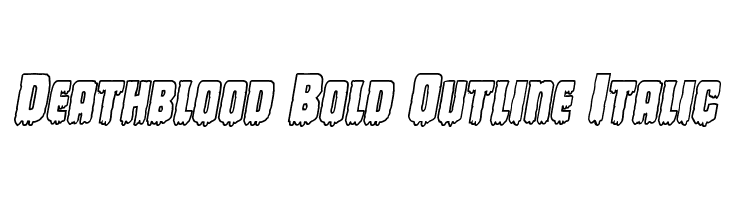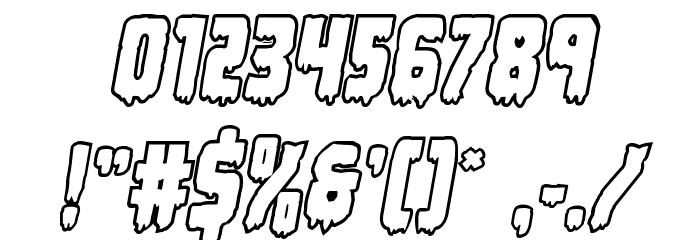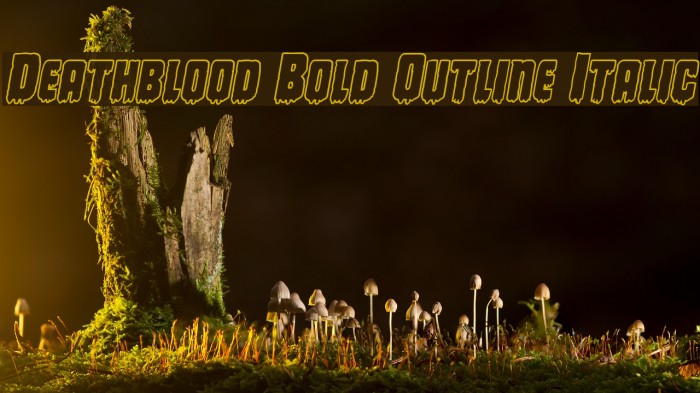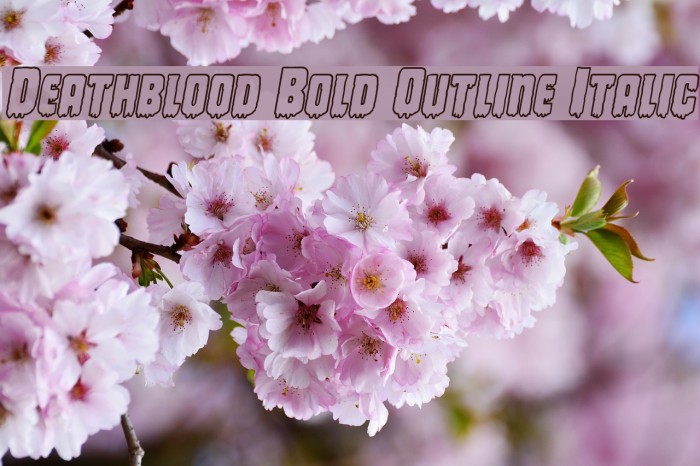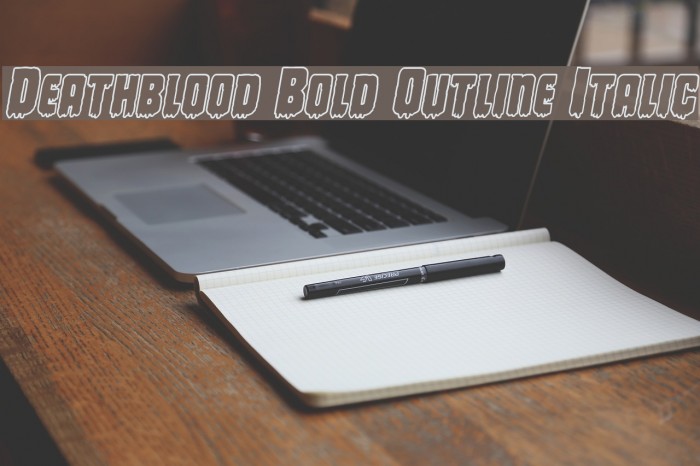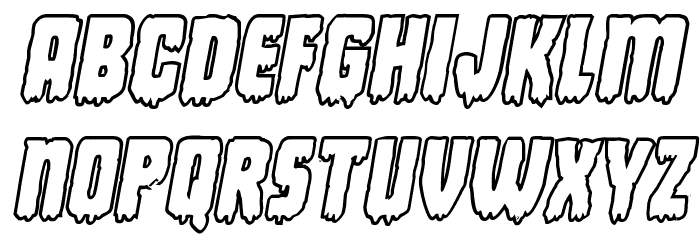
Deathblood Bold Outline Italic Font
This font features a bold, outlined style with a distinct italic slant, giving it a dynamic and edgy appearance. The characters are designed with a thick outline that enhances their visibility and impact, making them suitable for attention-grabbing designs. The uppercase and lowercase letters maintain a consistent style, with a slightly condensed form that adds to the font's boldness. The numbers and special characters are crafted to match the overall aesthetic, ensuring uniformity across all elements. This font's unique style makes it ideal for projects that require a strong visual presence.
A bold, outlined, italic font with a dynamic and edgy style.
• Proposed Projects: Ideal for horror-themed posters, video game titles, Halloween invitations, and edgy branding projects.